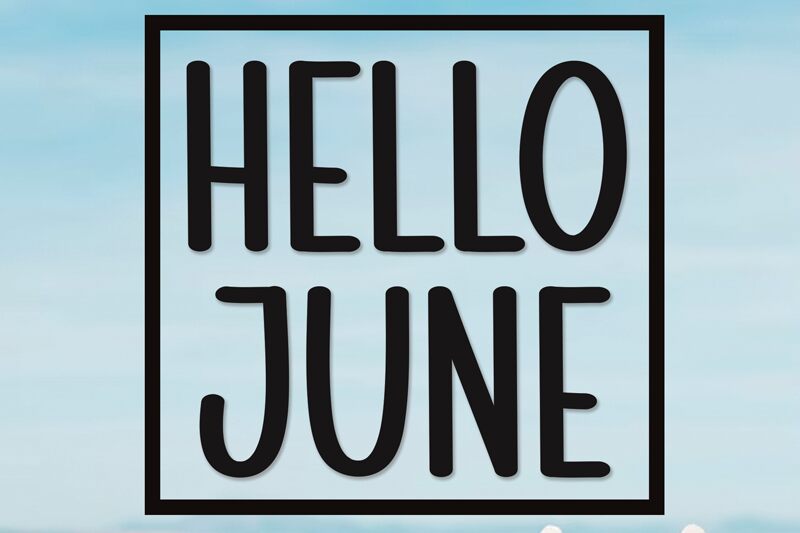
Hello June
Hello June font, crafted by Scratchones, is a captivating handwritten typeface that radiates charm and individuality. Its condensed style makes it an excellent choice for creating impactful designs in limited spaces while maintaining readability. The font's organic flow and personal touch bring warmth and authenticity to each letterform, making it ideal for projects that require a humanistic feel.
Perfect for invitations, greeting cards, and social media graphics, Hello June adds a touch of elegance with its unique character. Whether you're designing for print or digital formats, this free font offers versatility and creativity at your fingertips. Don't miss the chance to download Hello June font to elevate your design aesthetic with its engaging style.